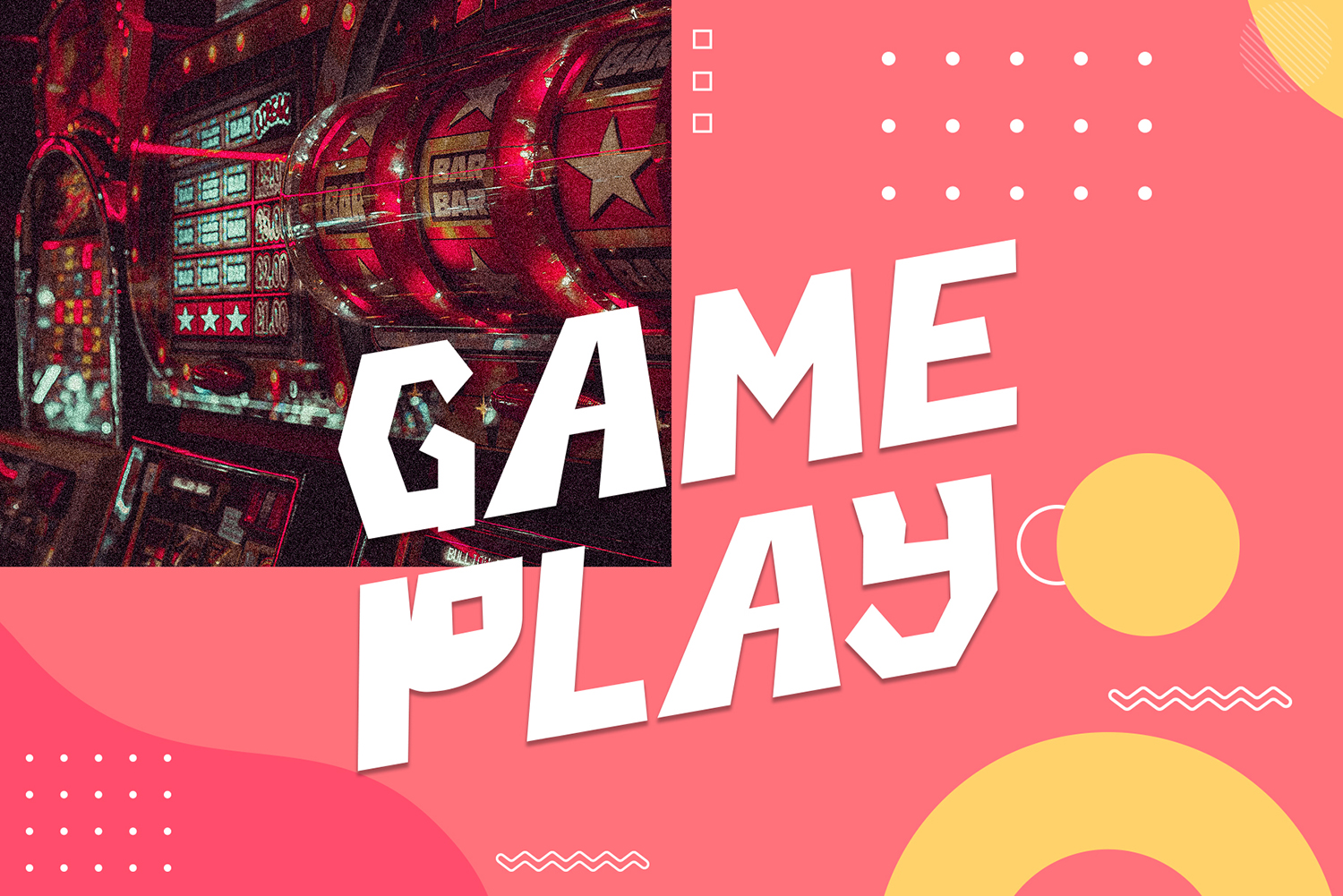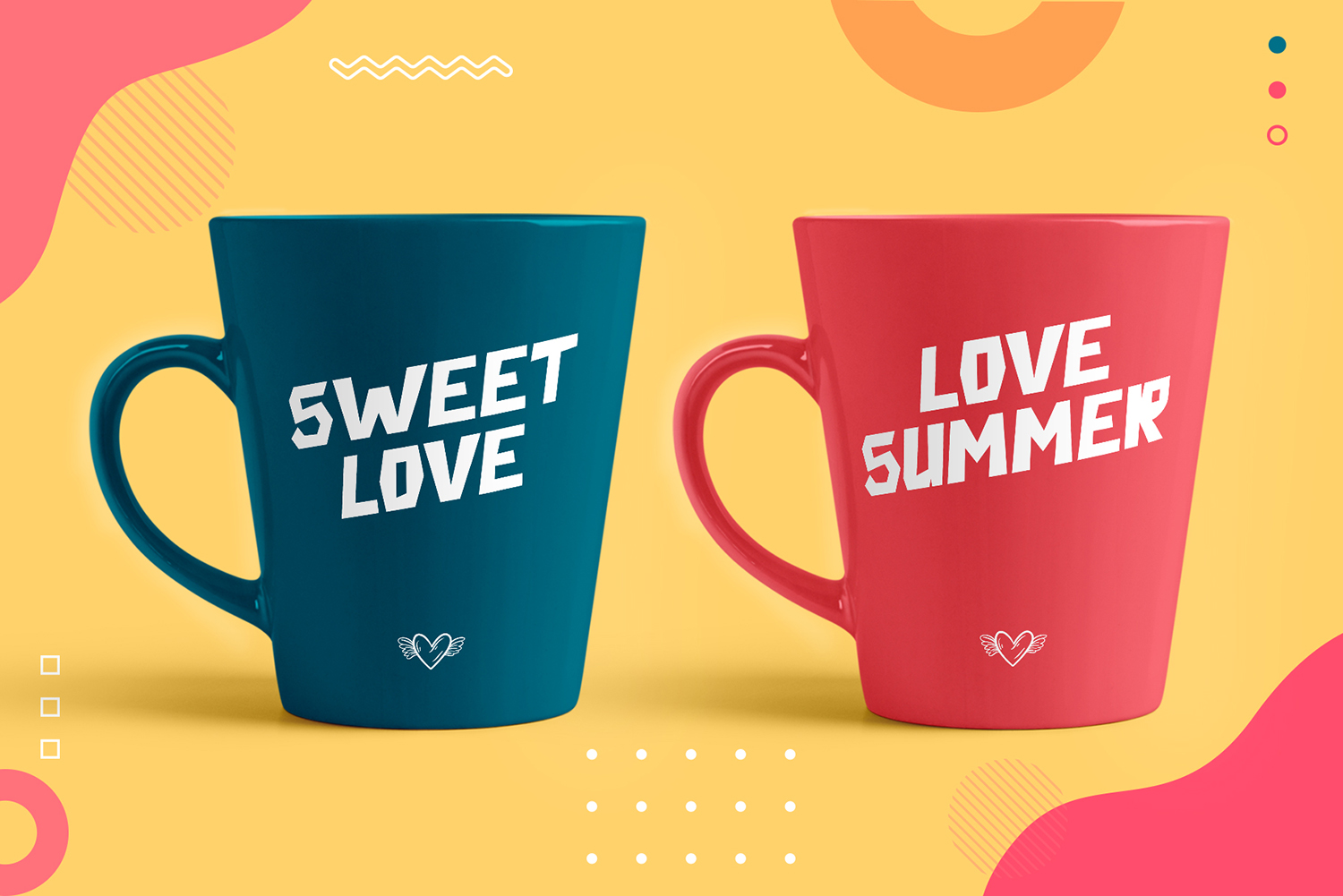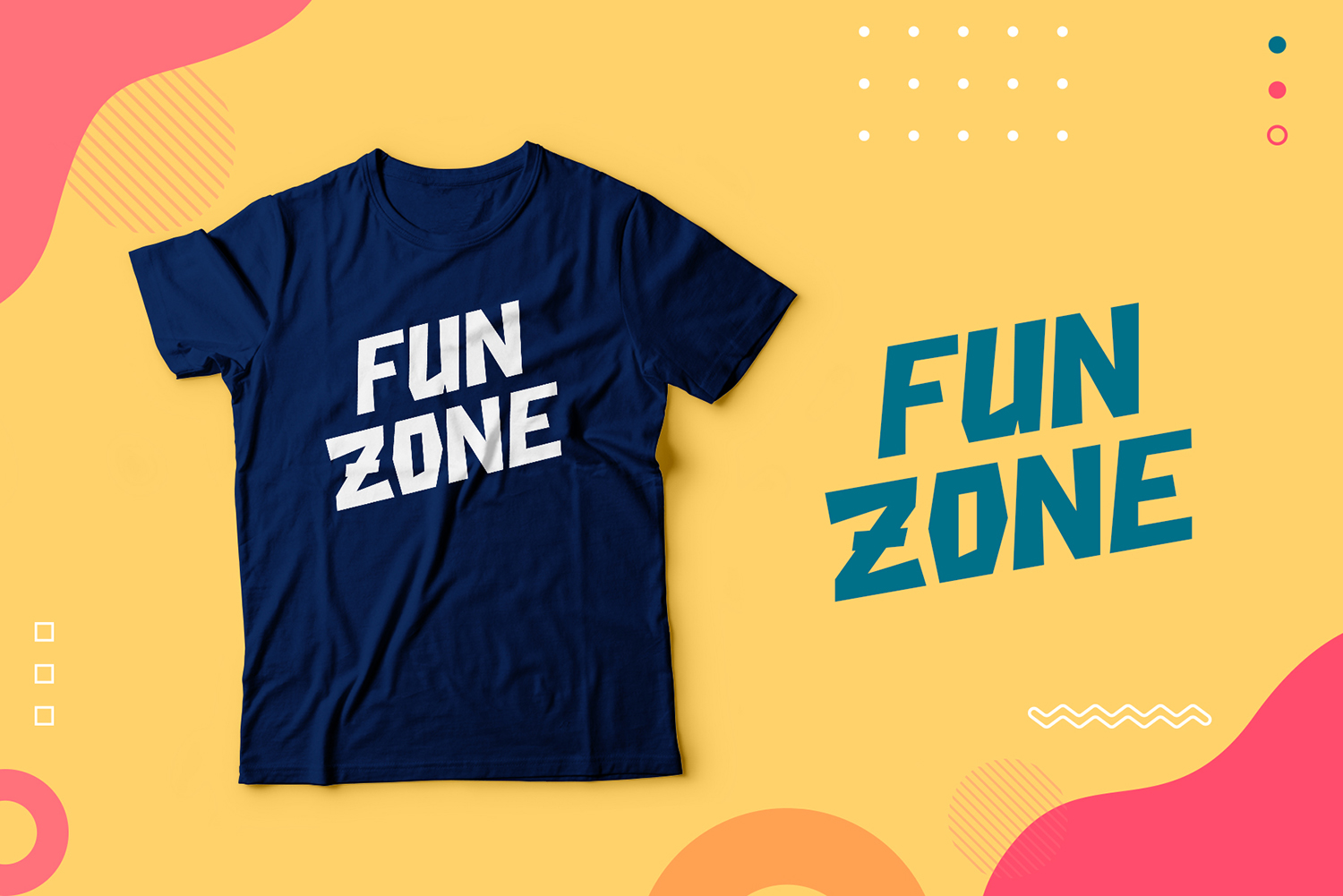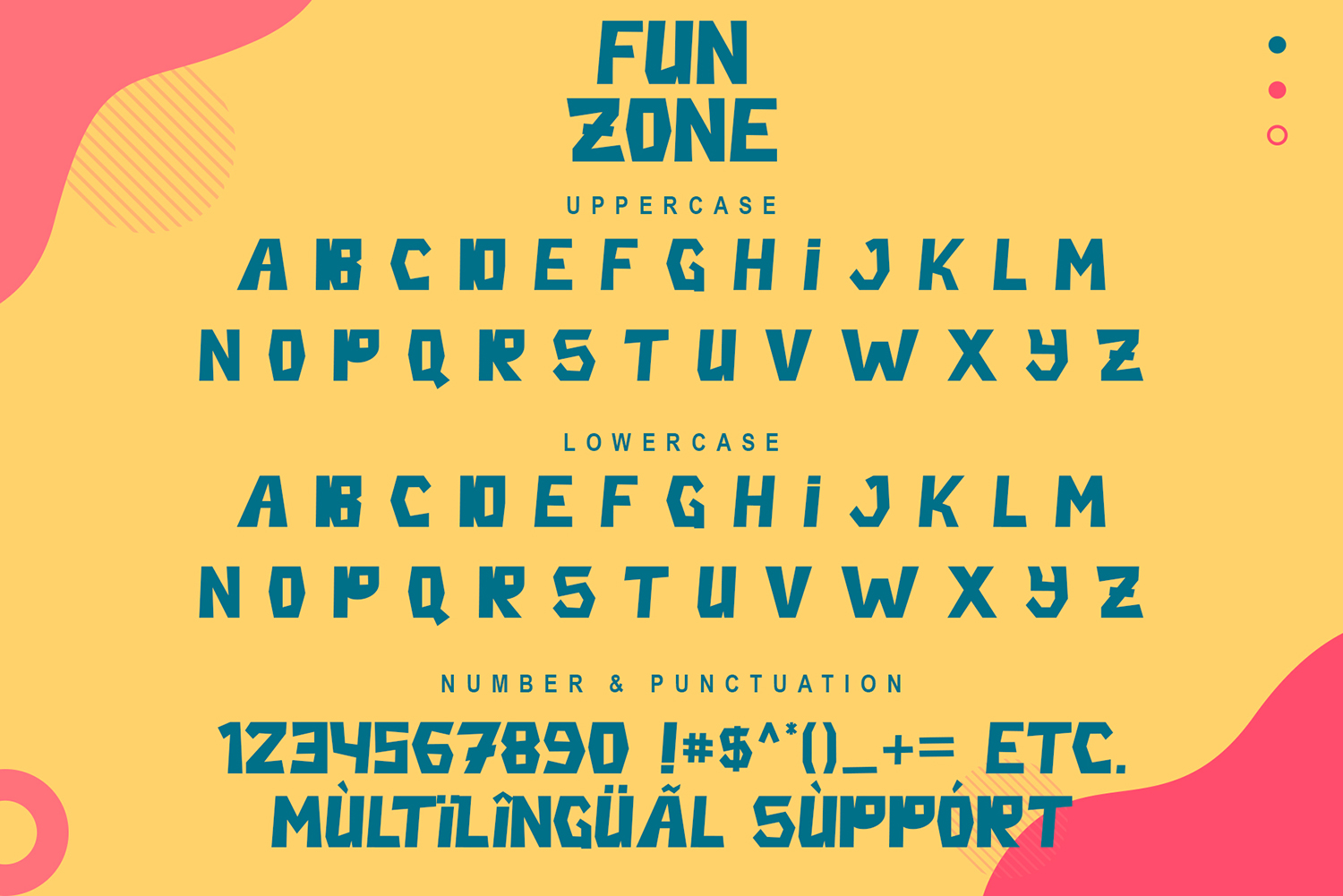
Fun Zone Free Font
Fun Zone Free Font is a fun and playful display font. With its modern and chunky characters, this typeface would make a great choice for book titles, magazines, children’s notebooks, apparel designs, games, and so much more. This free typeface was designed by a talented Alif Ryan Zulfikar. If you like it don’t forget to check out the full version.